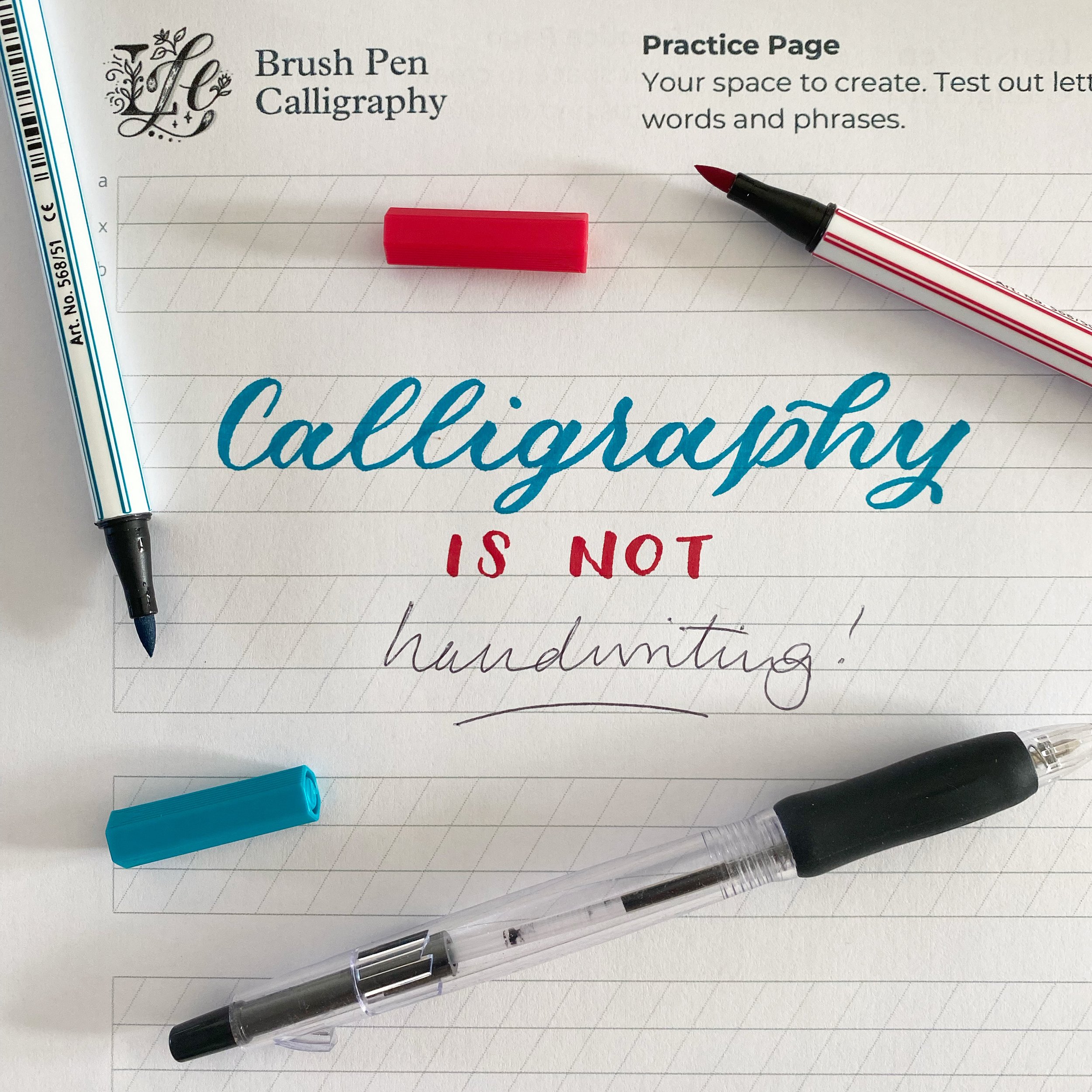
I recently posted on Instagram about this as it was National Handwriting Day a few days before and it had slipped passed, because…well, calligraphy IS NOT handwriting, and so I did not think to mention anything.
But I realised that it’s one of the most common disclaimers I get when people join one of my workshops or course… “My handwriting is awful”, “I’m not going to be very good and I have bad handwriting”. Sound familiar?
Even if you haven’t said it, there’s a big chance you’ve probably thought it. Or maybe, just maybe, you’re one of the few who has beautiful handwriting, and so don’t have a desire to learn calligraphy.
Well, I’m here to dispel a few myths!
The first being the key differences between calligraphy and handwriting – and why they are two separate (but wonderful) beasts.
Calligraphy is an art form. It is the art of beautiful writing.
In calligraphy, we:
Create every stroke and shape slowly, intentionally and following a consistent script technique.
There are many standard calligraphy styles from spencierian and imperial, to gothic and modern brush script. But many calligraphers develop their own signature calligraphy style too, which can be taught to others.
You tend to create using nib and ink, or chisle-tip or brush pens (however, I also teach many people with any pen, or pencil!)
Calligraphy is used for creative projects such as personalising gifts or items, wedding or event stationery, to branding, logos and beyond!
Handwriting is a form of expressing language.
It can include block or cursive styles, but the crucial differences are:
Every person has a unique style of handwriting.
Handwriting can even be used to verify who wrote the document / words (Google ‘Graphology’, the study of handwriting’).
Handwriting is used to communicate through written language, rather than as a creative art form.
Handwriting can be referred to as ‘Penmanship’ which is the art, skill or manner of handwriting.
Have a go: Try creating “Shopping List” in carefully crafted calligraphy, and then write your list in handwriting. You could do this with To do lists, Planners and more!
Most people learn to write at school. You may even have dabbled with a bit of calligraphy, or fun bubble lettering. But for most, calligraphy can be a mindful creative activity to: